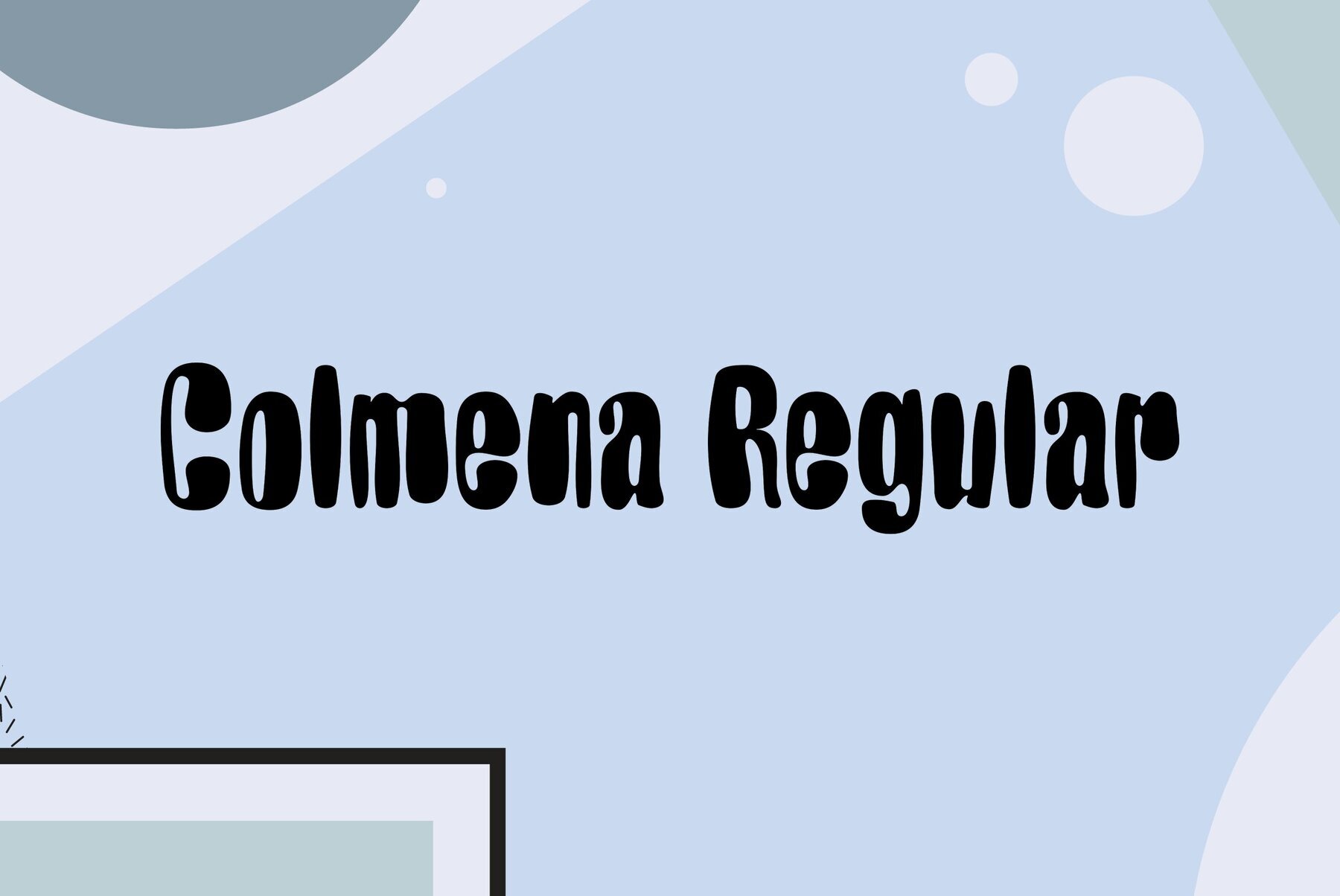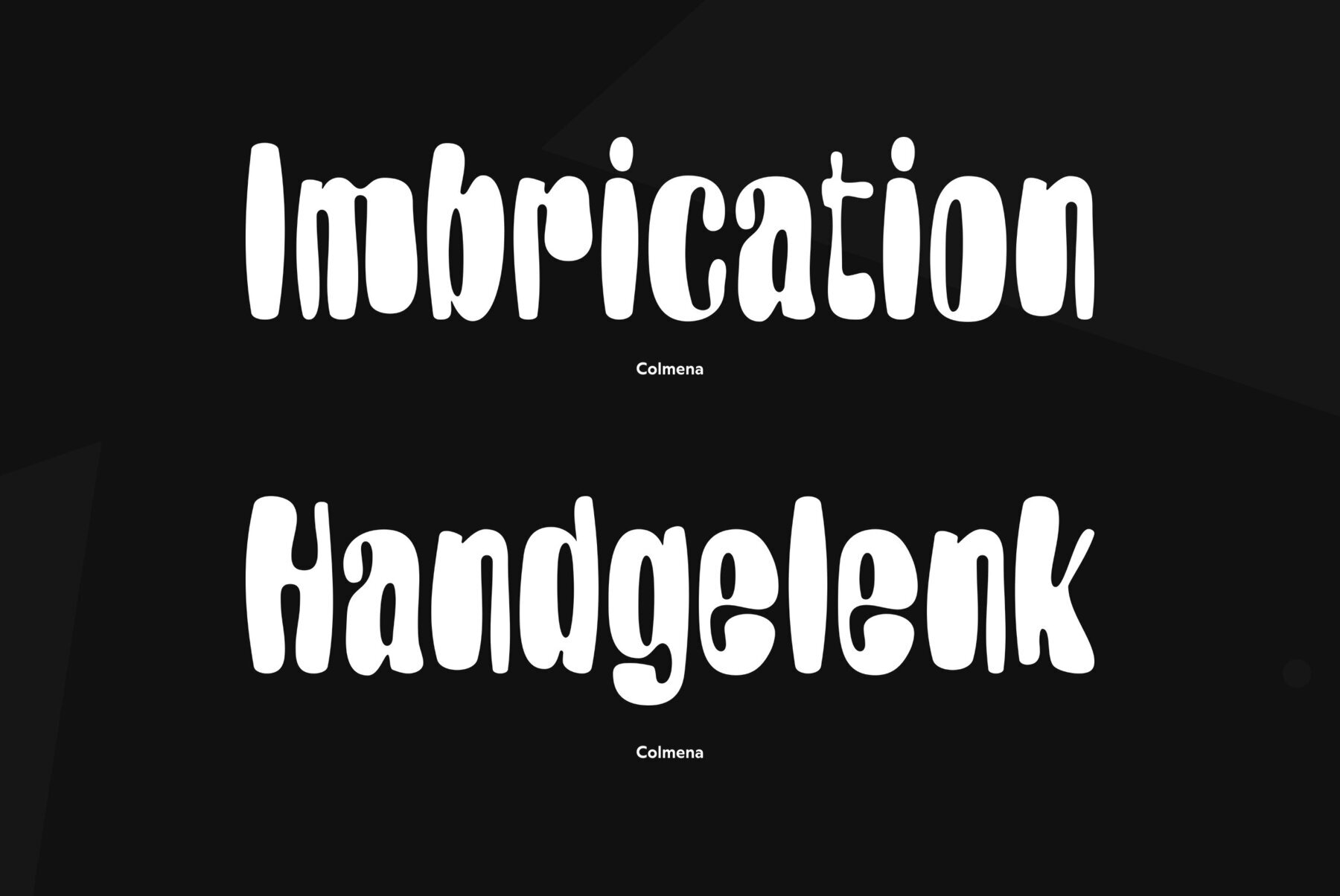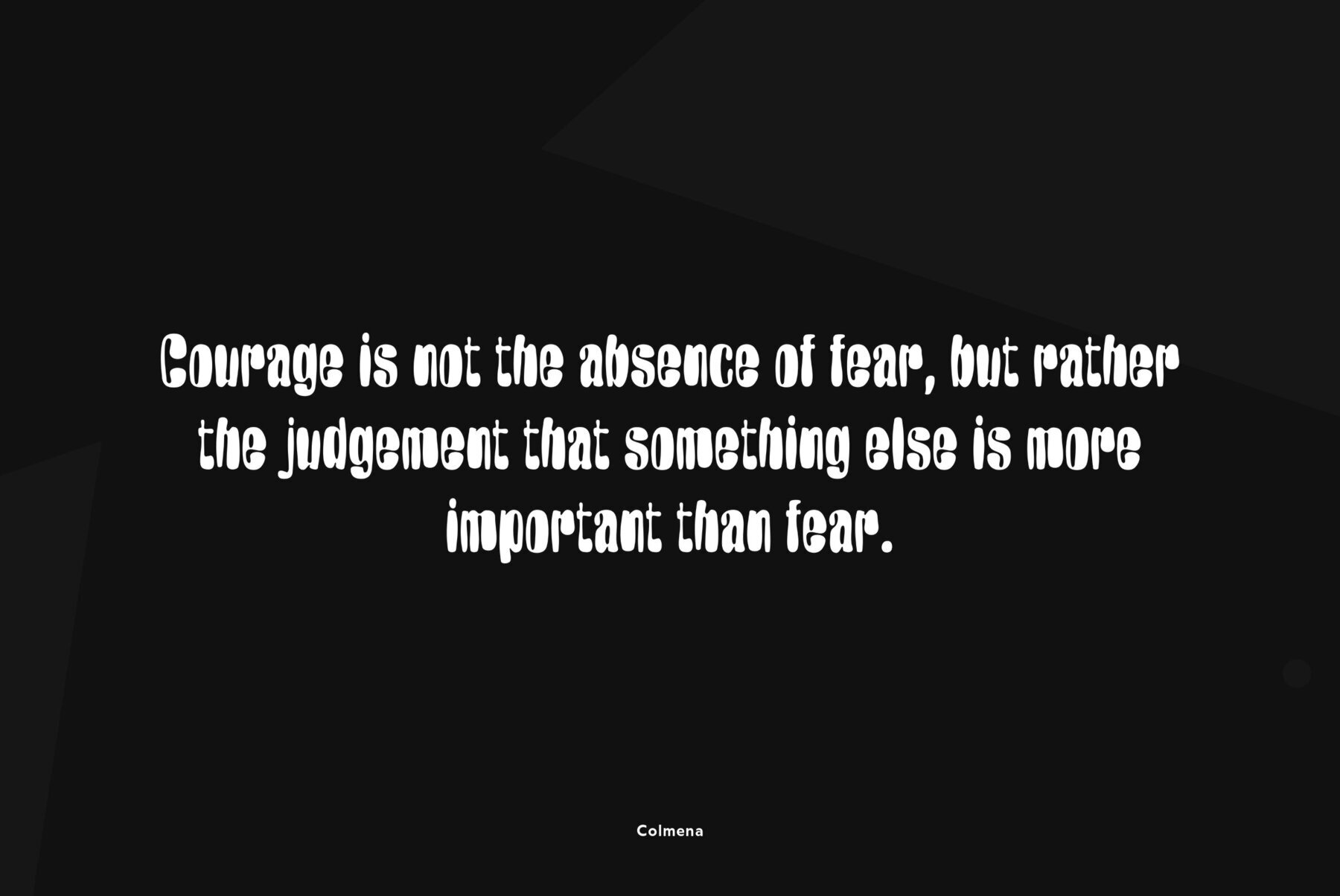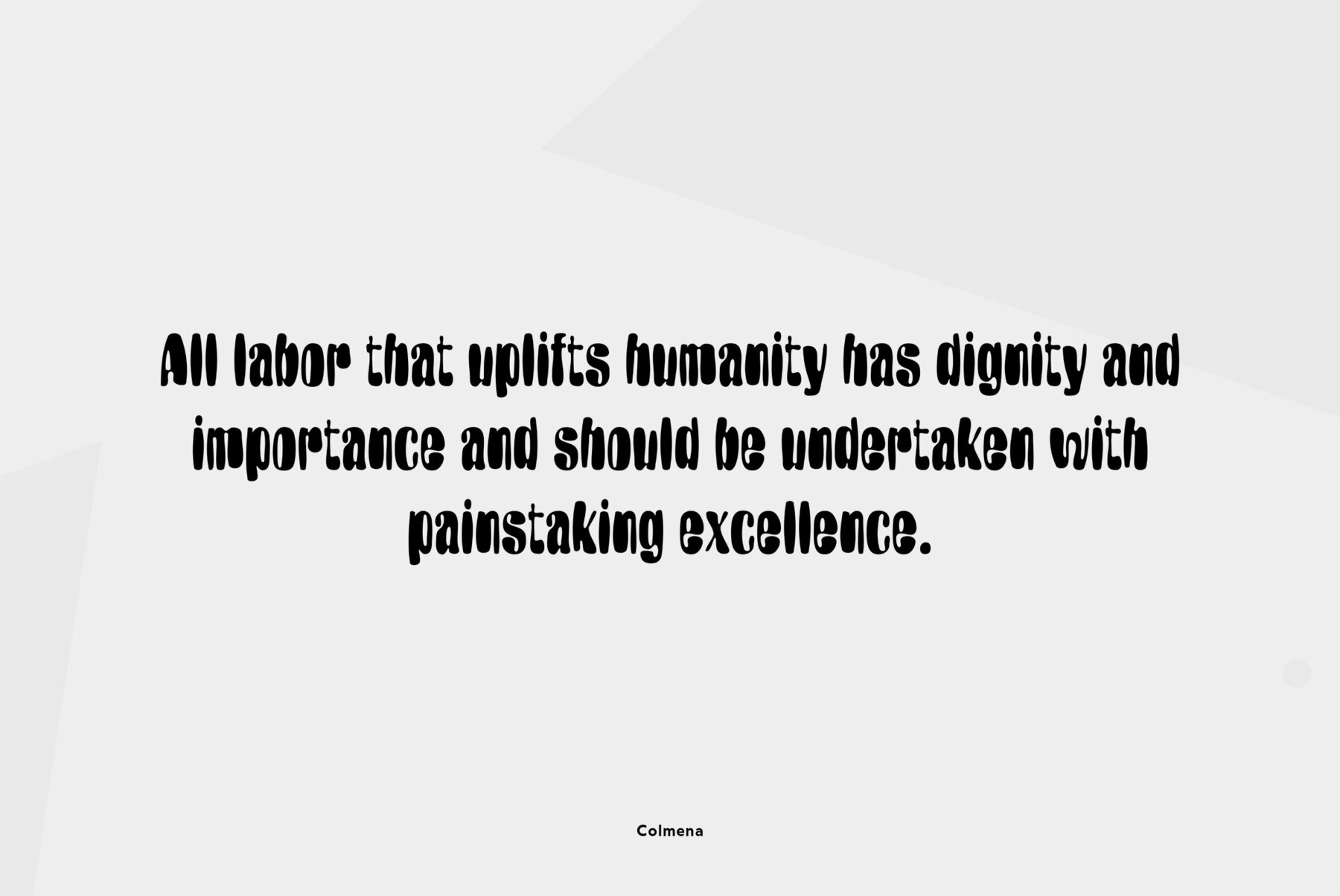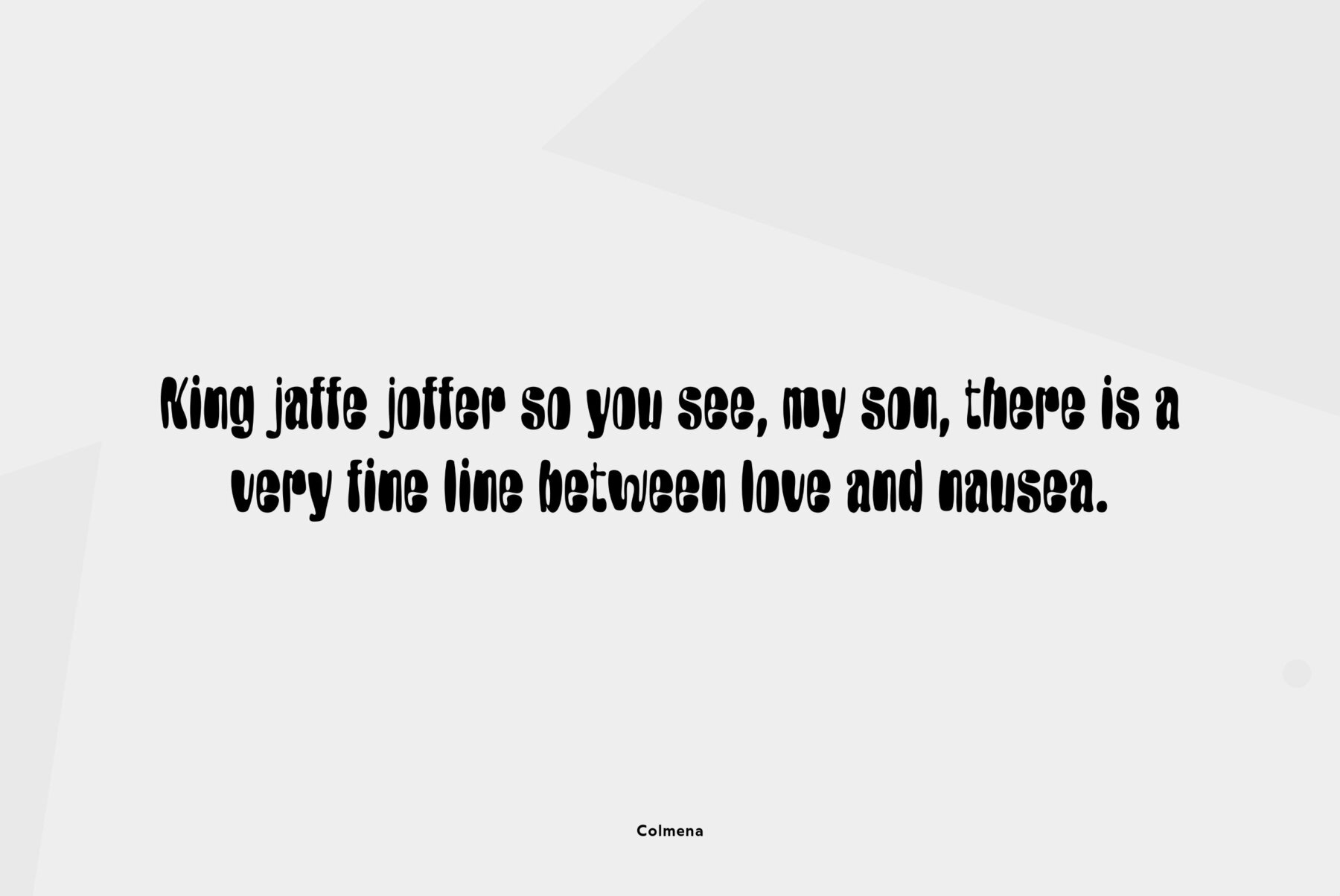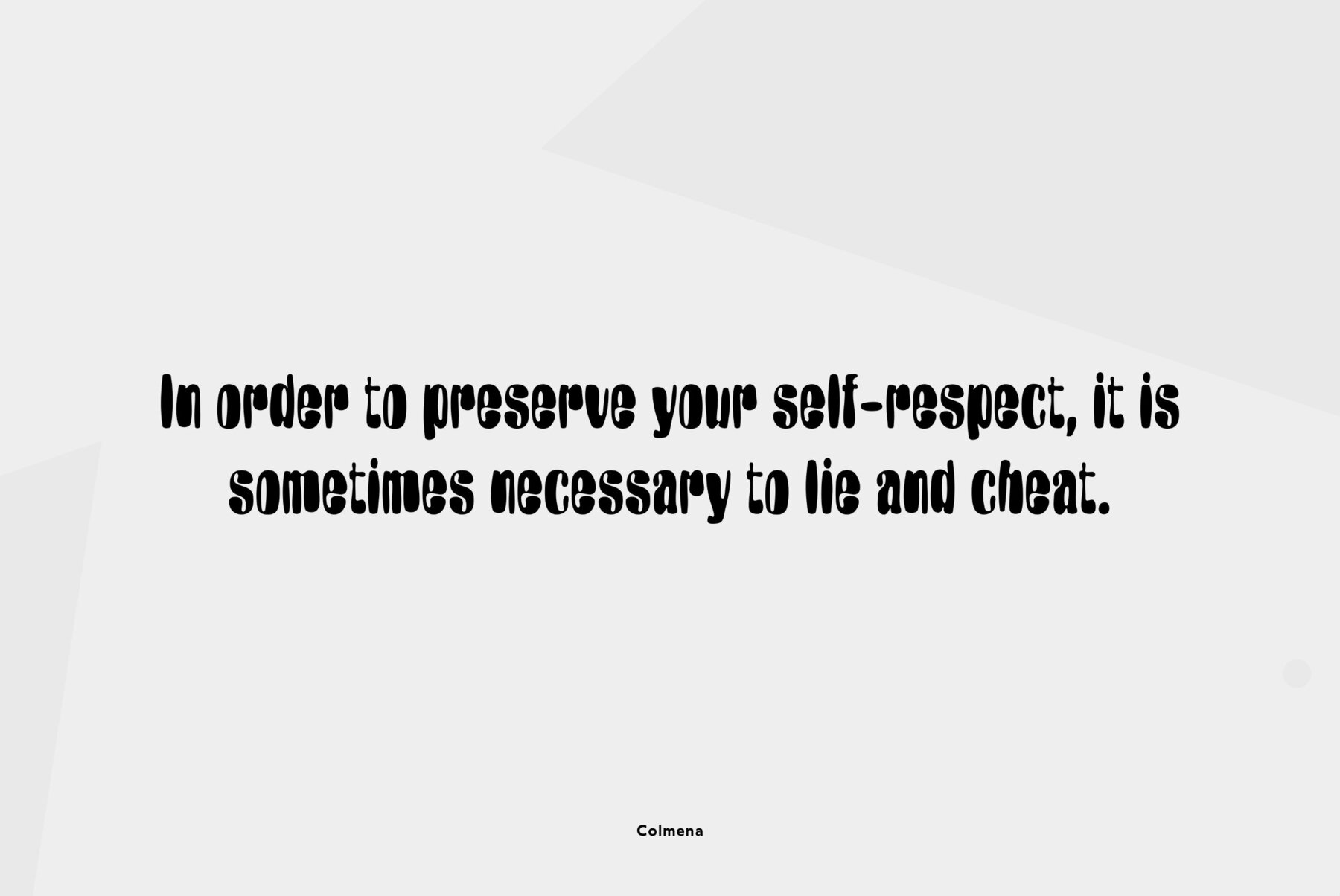
Colmena
Decorative typeface Colmena (means Beehive in Spanish) is featured by soft viscous shapes and high contrast that resemble bees and honey. The font under the name FD_Harvey took part into TypeArt Contest in 2005. It will be good in display works especially in books for children. Designed by Alexey Arhipov. Released by ParaType in 2010.